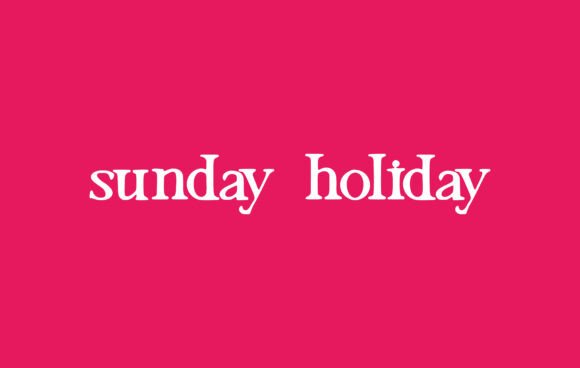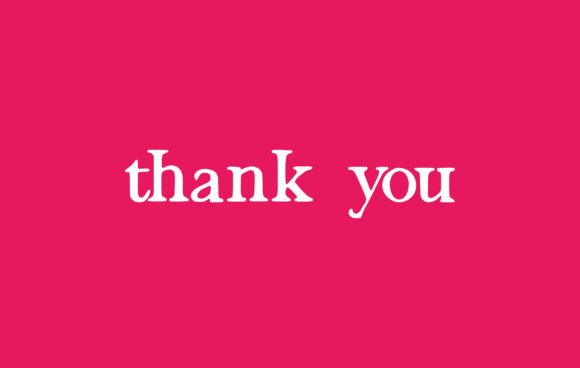
Introducing Carson Font: The Authentic Serif with a Romantic Touch
In the world of typography, fonts play a crucial role in bringing creative ideas to life. Among the numerous fonts available, Carson Font stands out as a unique and authentic serif font with a romantic touch. Designed to be a true favorite among designers and crafters, Carson Font has the potential to elevate your designs to new heights.
What Makes Carson Font Special?
Carson Font boasts a distinctive serif style that exudes elegance and sophistication. Its romantic touch adds a touch of warmth and personality to any design, making it perfect for a wide range of creative projects. Whether you’re working on magazine headlines, social media graphics, branding materials, wedding invitations, or cards, Carson Font is an excellent choice.
Legibility and Versatility
One of the key features of Carson Font is its exceptional legibility. Its clear and well-defined letterforms make it easy to read, whether used as title text or body text. This versatility allows designers to use Carson Font in various contexts, from large headlines to smaller paragraphs of text.
Carson Font’s flexibility makes it an ideal choice for numerous design applications. Here are some of the ways you can use Carson Font to enhance your designs:
- Magazine Headlines: Add a touch of sophistication to your magazine headlines with Carson Font’s elegant serif style.
- Social Media Graphics: Create eye-catching social media graphics with Carson Font’s romantic touch.
- Branding Materials: Use Carson Font to develop a consistent brand identity that exudes elegance and refinement.
- Wedding Invitations: Add a touch of romance to your wedding invitations with Carson Font’s beautiful serif style.
- Cards and Stationery: Create stunning cards and stationery with Carson Font’s elegant and legible design.
Why Choose Carson Font?
With so many fonts available, why choose Carson Font? Here are a few reasons why Carson Font stands out:
- Unique Style: Carson Font’s authentic serif style with a romantic touch sets it apart from other fonts.
- Exceptional Legibility: Carson Font’s clear and well-defined letterforms make it easy to read.
- Versatility: Carson Font can be used in various design applications, from magazine headlines to body text.
- Elegance and Sophistication: Carson Font adds a touch of elegance and sophistication to any design.
Tips for Using Carson Font Effectively
To get the most out of Carson Font, here are some tips for using it effectively:
- Pair with Other Fonts: Experiment with pairing Carson Font with other fonts to create a unique and visually appealing design.
- Use in Combination with Images: Combine Carson Font with high-quality images to create stunning visual content.
- Experiment with Colors: Try out different color schemes to find the perfect combination that complements Carson Font.
In conclusion, Carson Font is an exceptional serif font with a romantic touch that can elevate your designs to new heights. Its unique style, exceptional legibility, and versatility make it perfect for a wide range of design applications. Whether you’re a designer or crafter, Carson Font is an excellent choice for adding a touch of elegance and sophistication to your creative projects.